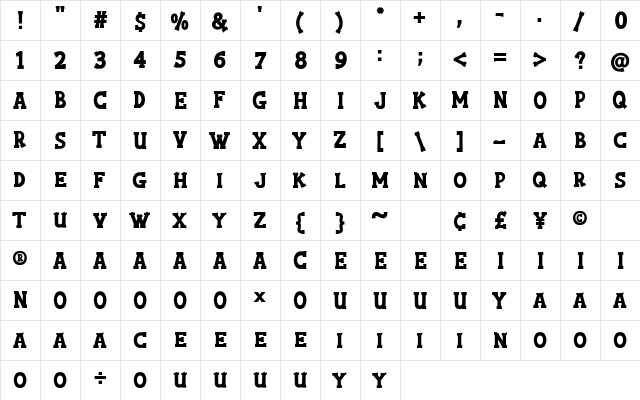
Sport Day Bold
| Foundry | Fontsera |
| Designer | Youssef Boufelja |
Design Context for Sport Day Typeface
Sport Day has the bold swagger of sports branding: strong, assertive letterforms designed to dominate headlines and jerseys alike. The heavy weight commands attention and anchors typographic hierarchies.
Built for sports team identities, athletic apparel, event posters, and high-energy promotional material.
Font Pairing: Use alongside a condensed or geometric sans for supporting copy — keep the pairing bold, functional, and free of ornament.
Pro Tip: Sport Day thrives on contrast — try it large, bold, and tight against a clean background for maximum visual impact.